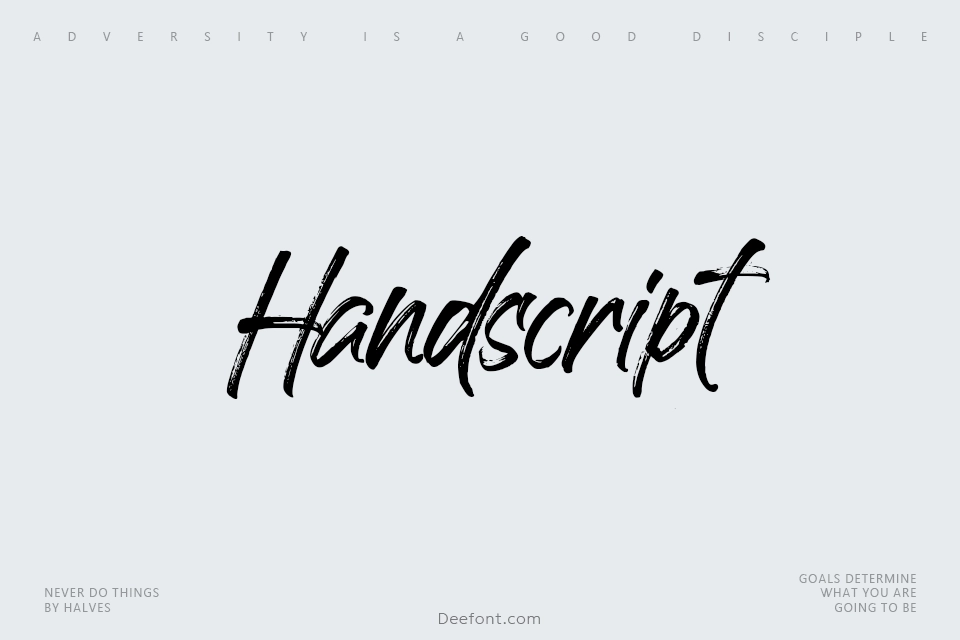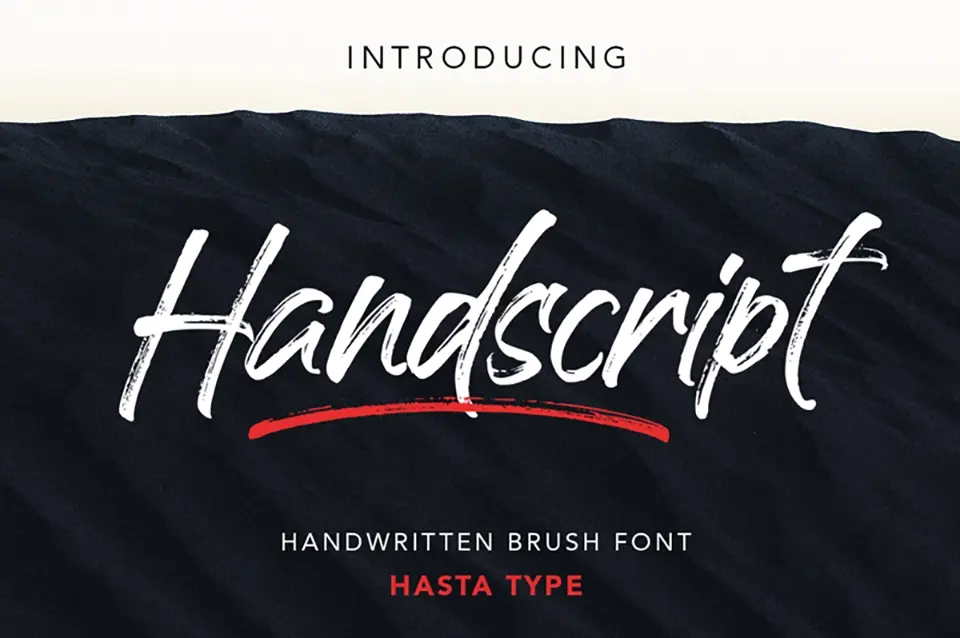
Handscript Font
Handscript is an elegant, hand-drawn brush script font featuring authentic texture and natural strokes created with a brush pen. This versatile typeface excels in modern design applications including branding, logotypes, advertising, posters, merchandise, album covers, and book covers. With its expressive and dynamic character, Handscript brings organic warmth and artistic appeal to any creative project, making it ideal for designers seeking authentic hand-lettered aesthetics in contemporary visual communication.